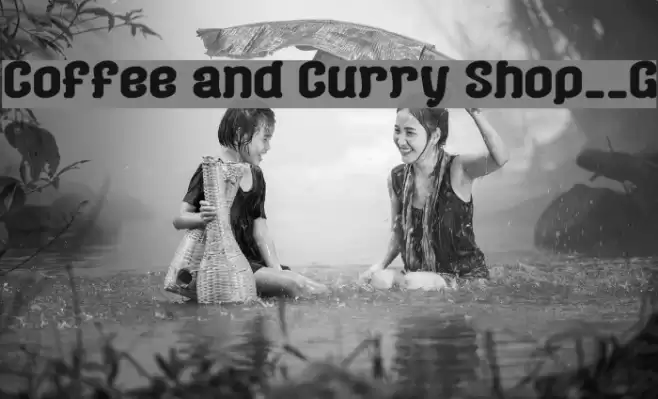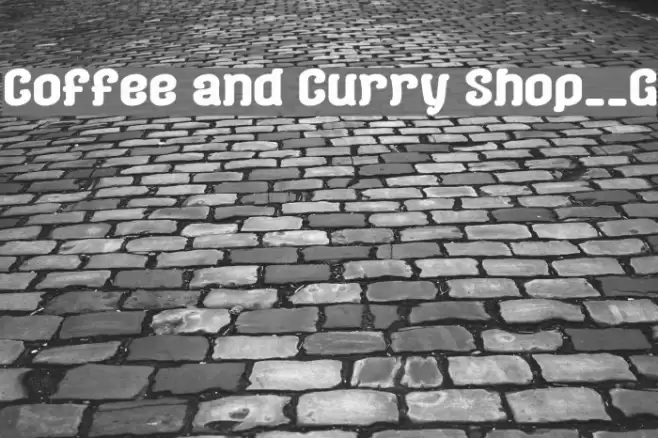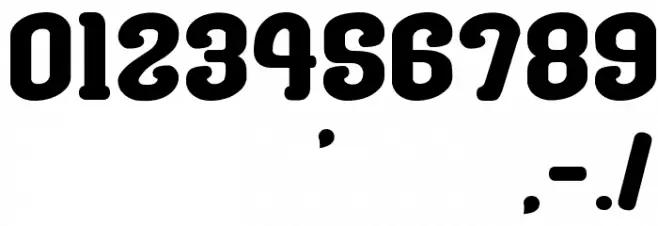
Coffee and Curry Shop__G Font
Coffee and Curry Shop__G Description
This font exhibits a playful and bold style, characterized by its rounded, bulbous serifs and thick strokes. The letters have a consistent weight, providing a strong and cohesive appearance. The uppercase and lowercase letters maintain a uniformity that enhances readability while adding a touch of whimsy. The numbers and special characters follow the same design principles, ensuring a harmonious look across all glyphs. This font's unique style makes it ideal for projects that require a fun and engaging visual impact.
A playful, bold font with rounded serifs and thick strokes from Uncategorized fonts.
- Proposed Projects: Ideal for children's books, playful branding, posters, and cafe menus.
- Overall Style: Playful